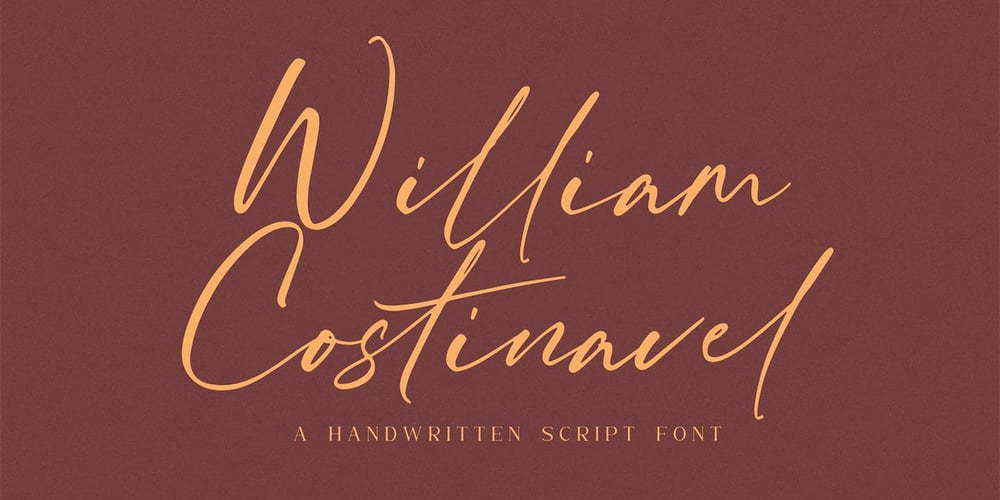
William Costinavel Font Family was designed by Hanief Farandi and published by Hanzel Space. William Costinavel contains 1 styles and family package options. William Costinavel. i hope this font is perfect for creating signature logos and watermarks for photography studio or wedding invitation, Label, Logo, Magazine best for initial or branding logo signature.William Costinavel a full set of beautiful hand letters, numerals, a large range of punctuation and ligatures. Giving realistic hand-lettered style. What do you get, darling?In order to use the beautiful font, you need a program that supports OpenType features such as Adobe Illustrator CS, Adobe Photoshop CC, Adobe Indesign and Corel Draw. but if your software doesn’t have the Glyphs panel, you can install additional swashes font files